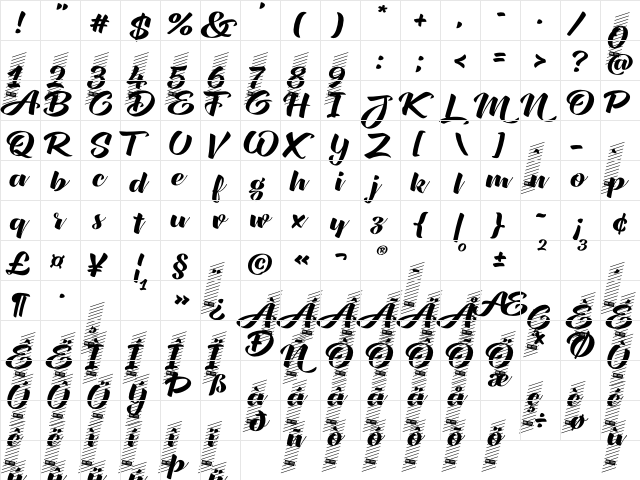
XXII CoolScript - DEMO SemiBold
Design Context for XXII CoolScript - DEMO Typeface
XXII CoolScript - DEMO flows with the natural rhythm of handwritten lettering, making it ideal for designs that call for warmth and personal expression. Its bold stroke weight gives it real presence on the page.
Font Pairing: Combine XXII CoolScript - DEMO with a simple geometric sans for maximum contrast — the tension between flowing curves and clean structure is a classic typographic pairing.
Pro Tip: Use XXII CoolScript - DEMO for short runs of text — names, titles, or taglines. Extended body copy in script faces tires the eye quickly.